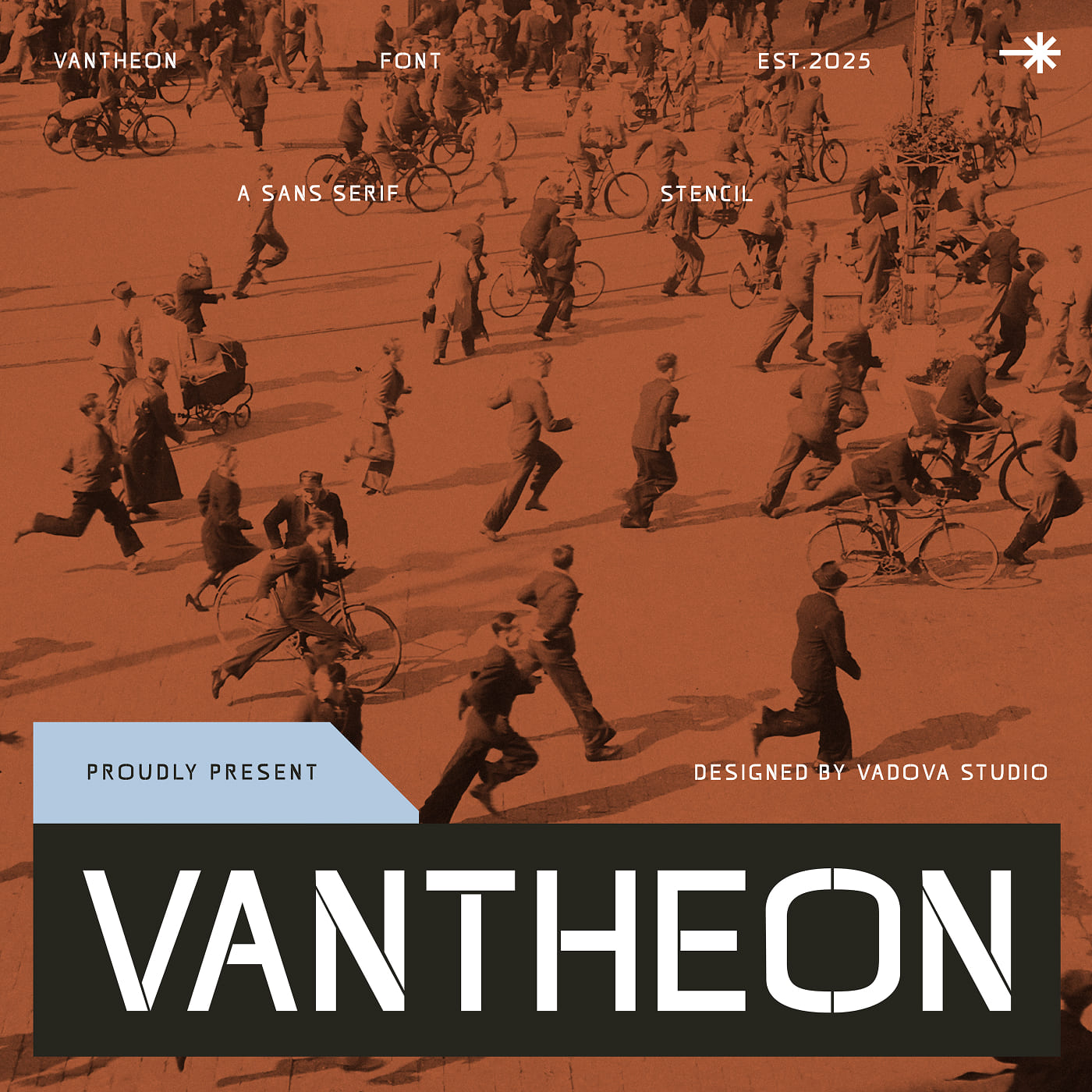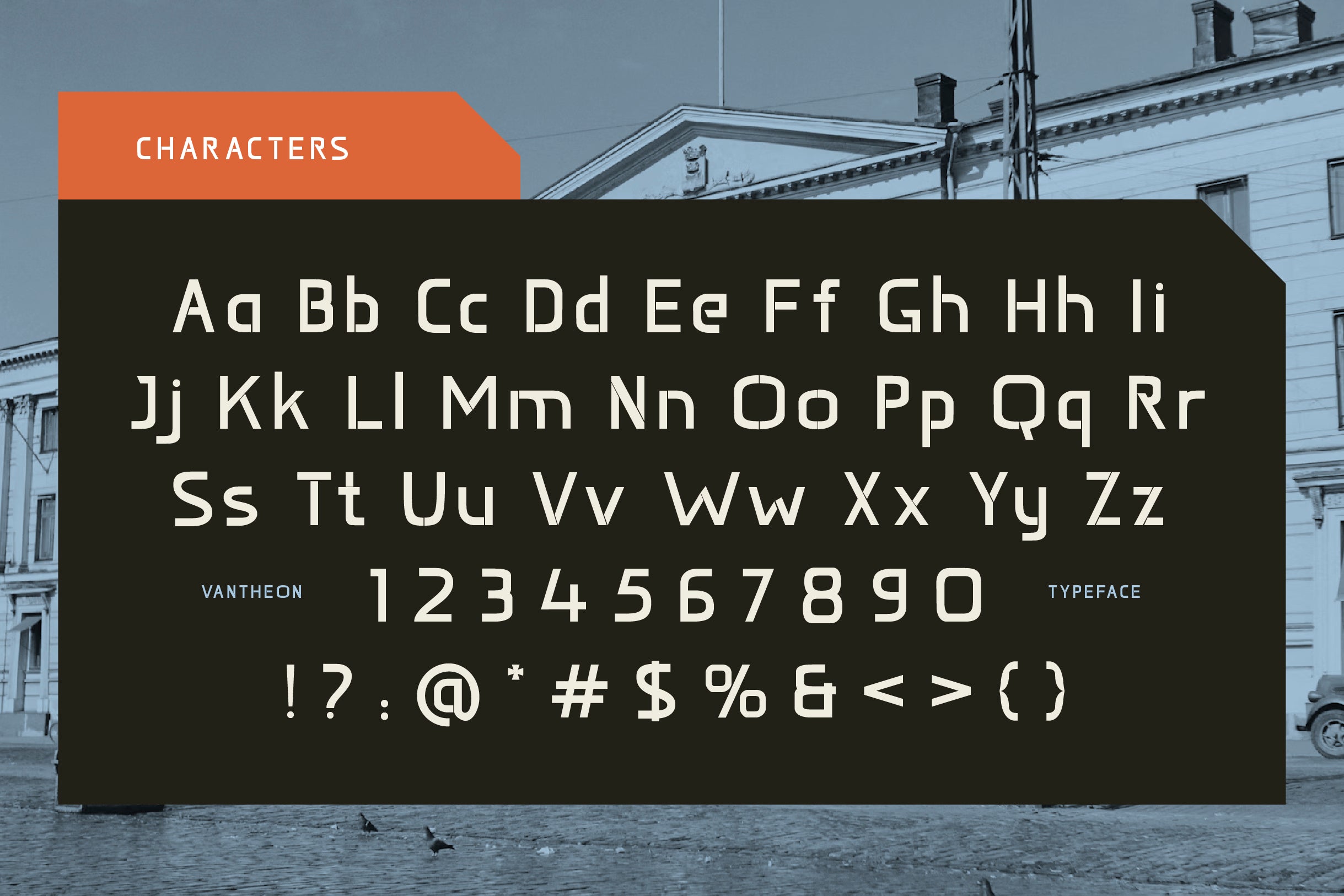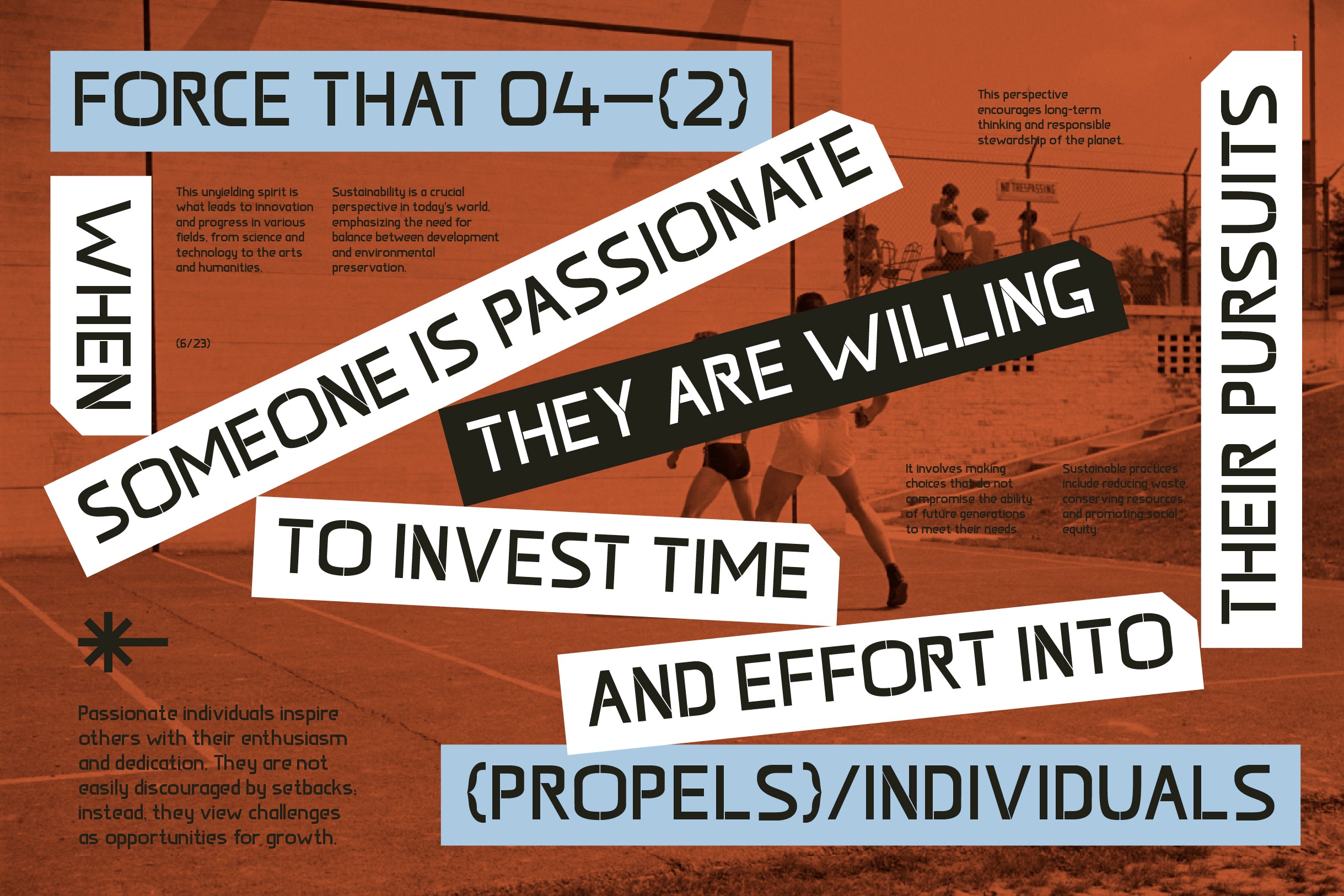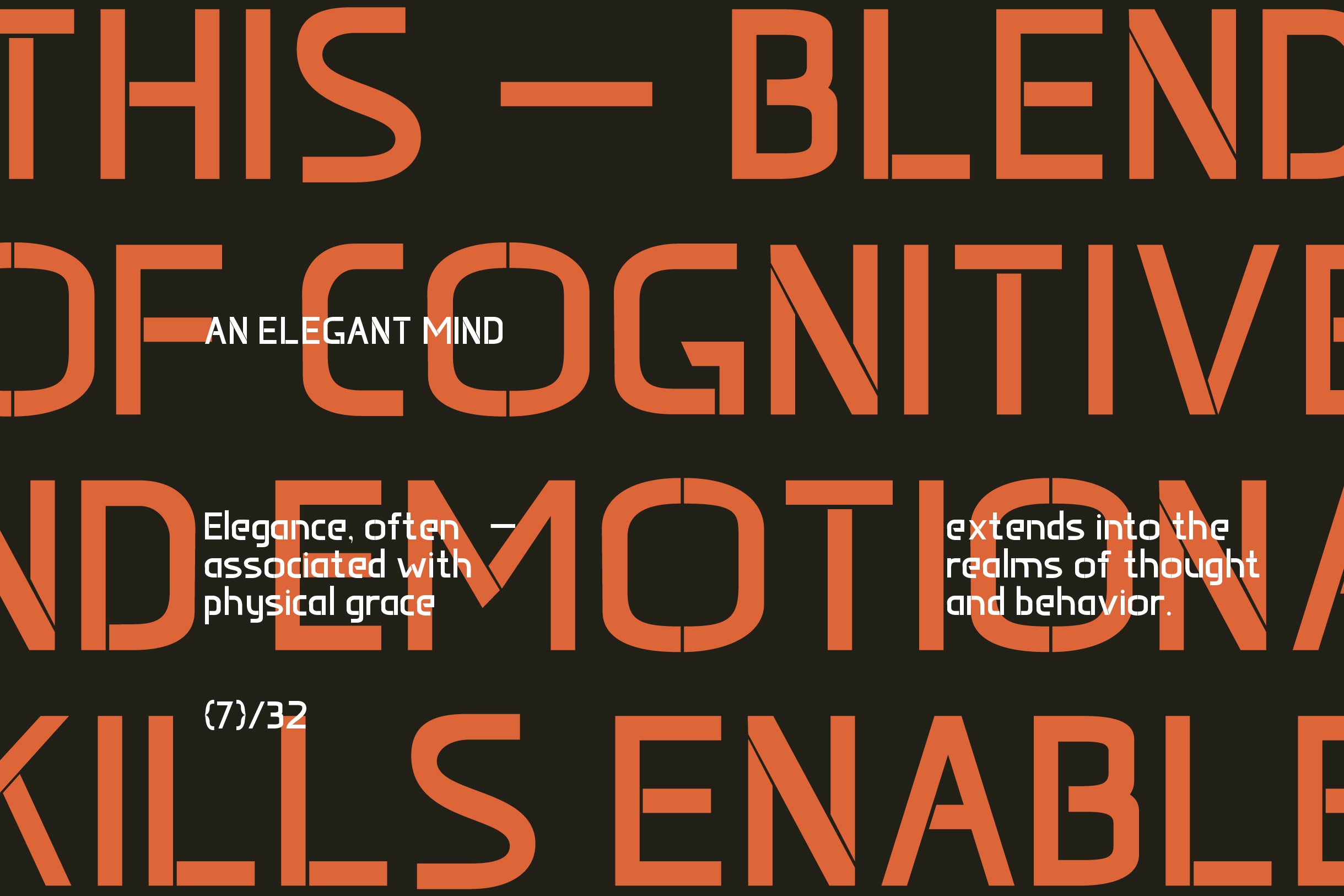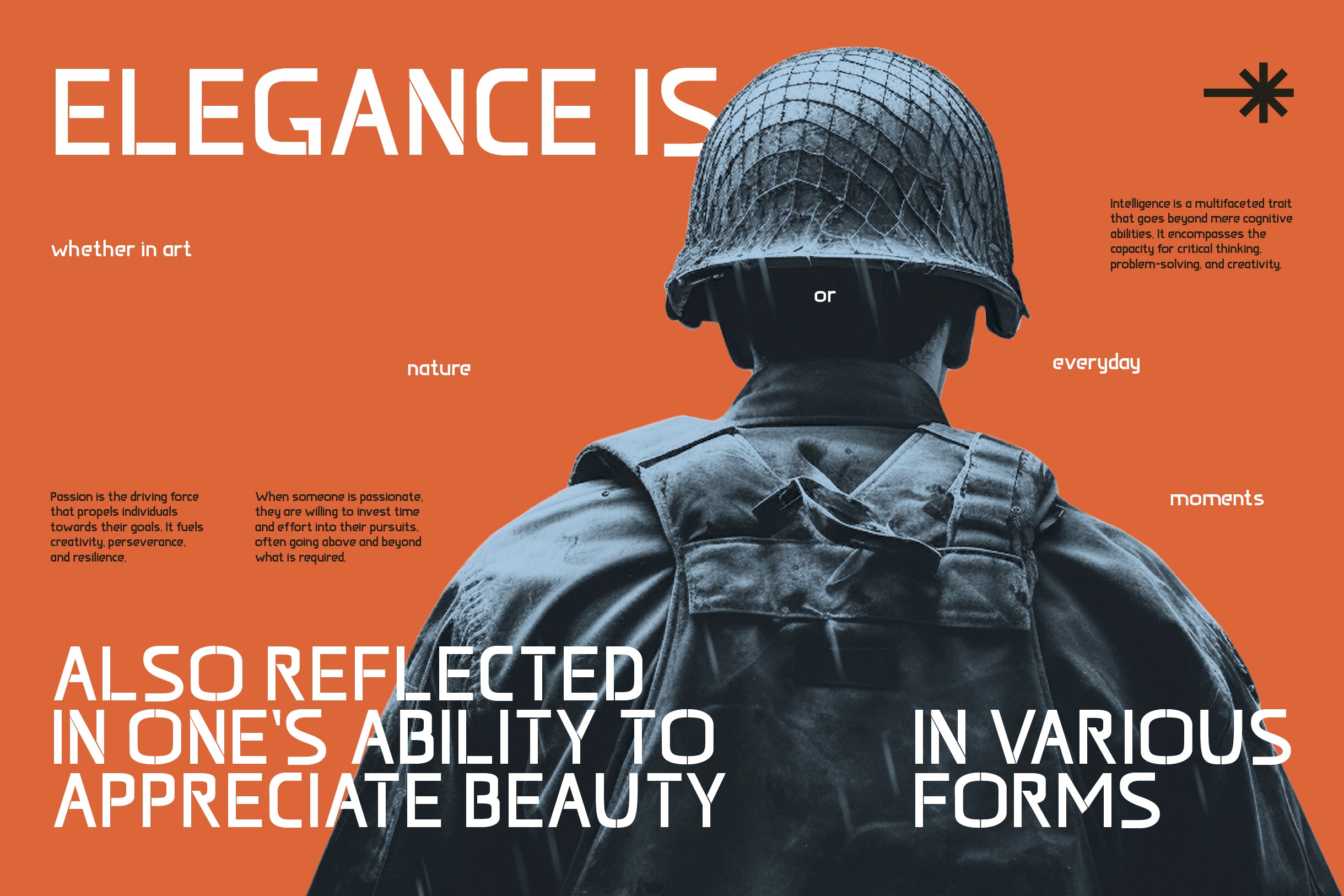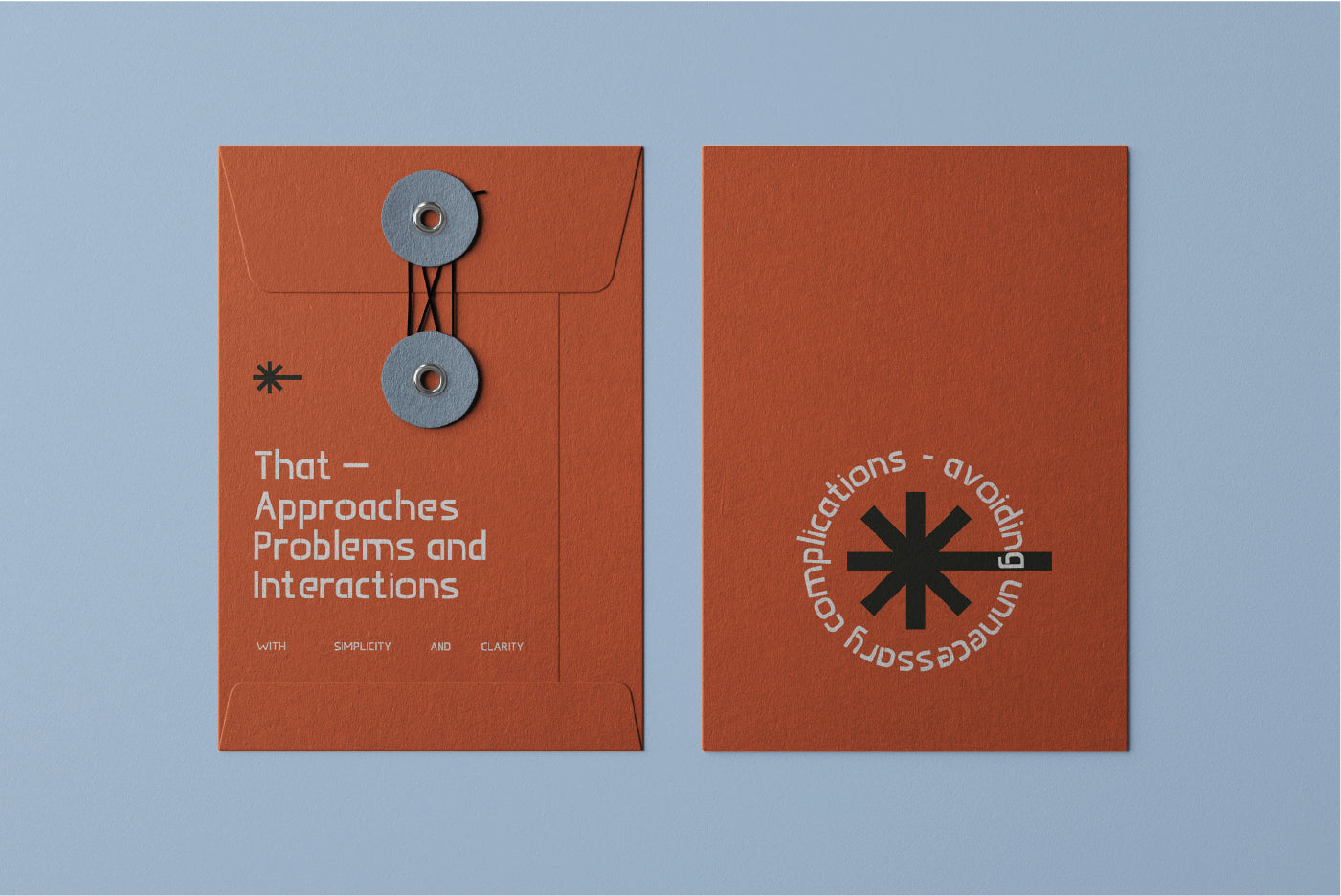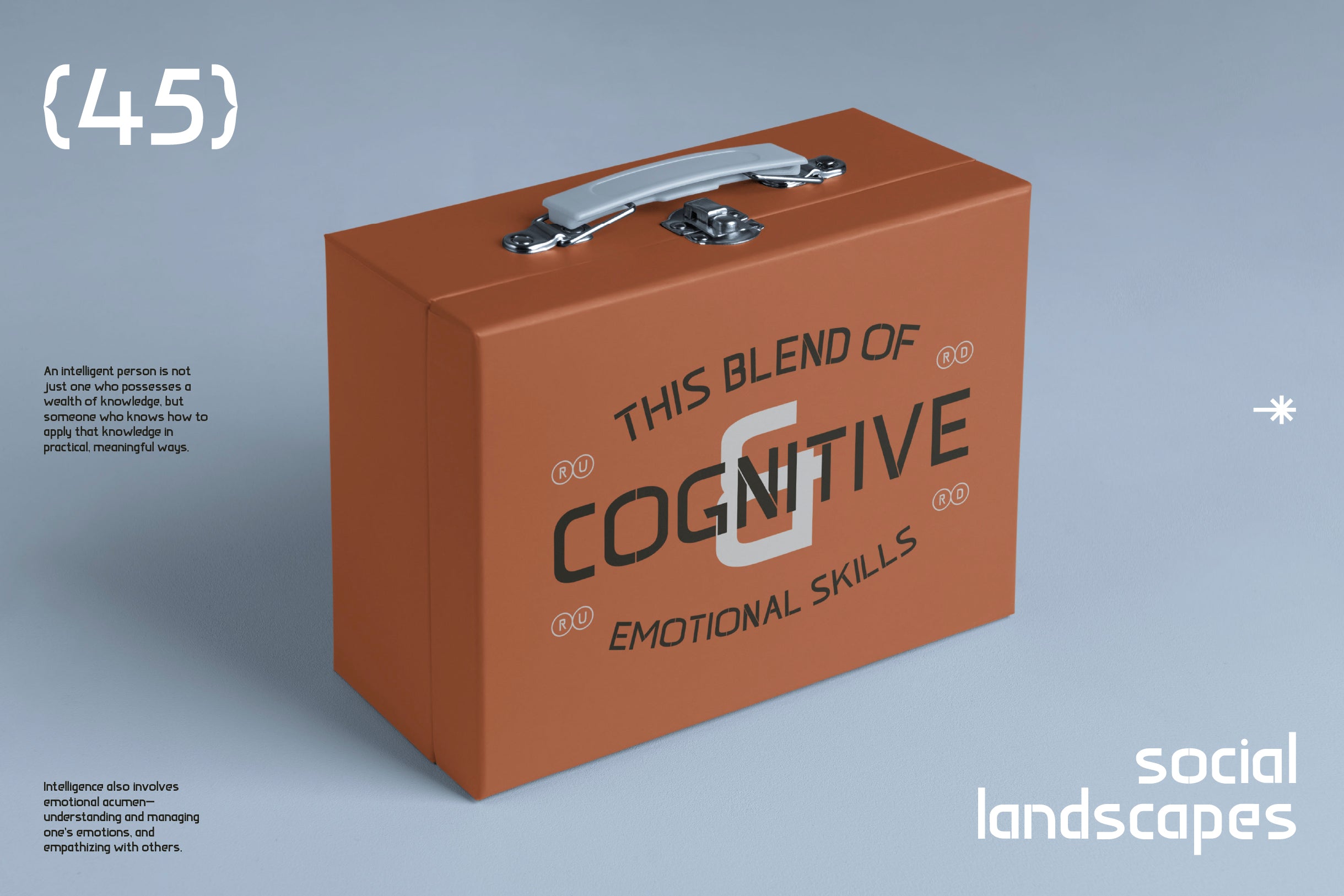
Vantheon Sans Serif Stencil Font
Vantheon is a modern sans serif stencil typeface with industrial cuts, geometric structure, and a bold editorial presence. Built for branding that needs a balance of modern precision and rugged character, this font works well for headline layouts, logo typography, product identity, packaging, signage, and magazine titles. The stencil breaks allow it to feel technical and utilitarian while still maintaining high readability. Includes uppercase, lowercase, numerals, punctuation, and multi-format files (OTF, TTF, WOFF).
Relevance and Use Cases is perfect for industrial branding, editorial headlines, urban streetwear labels, packaging typography, tech startup identity, poster title design, signage and wayfinding graphics, modern product display text, architecture firms, tactical equipment branding, and bold minimalist logo systems.
The Vantheon Sans Serif Stencil Font is a modern typeface featuring industrial cuts and a geometric structure, designed for high readability. It includes uppercase and lowercase characters, numerals, punctuation, and is available in TTF, OTF, and WOFF formats.